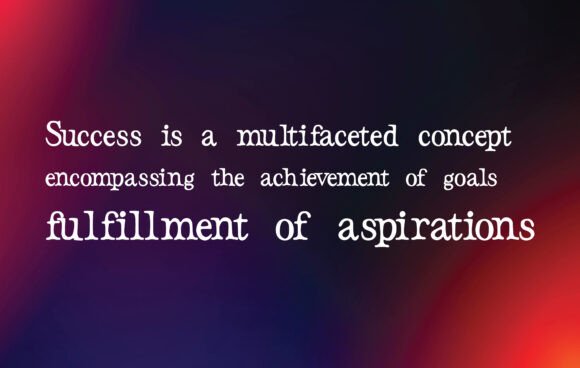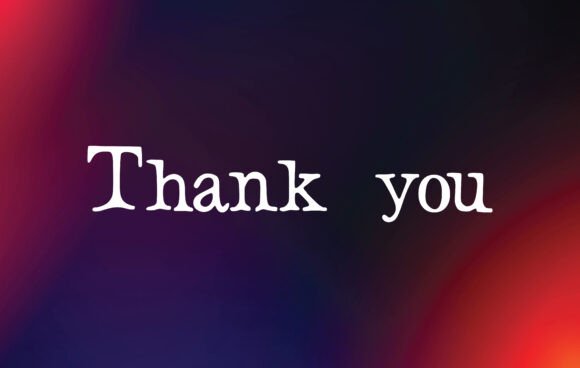
Halsey Font: Elevate Your Designs with a Touch of Elegance
Are you on the lookout for a font that can take your creative projects to new heights? Look no further than the Halsey Font. This stunning typeface is designed to be a true favorite among designers and crafters, offering a perfect blend of legibility, versatility, and style. Whether you’re working on a magazine headline, t-shirt design, social media post, or wedding invitation, the Halsey Font is sure to impress.
What Makes Halsey Font Stand Out?
The Halsey Font is crafted with precision and attention to detail, making it a standout in the world of typography. Its unique design ensures that it looks great as both a title and body text, providing flexibility and consistency across various applications. This font is not just about aesthetics; it’s also highly legible, making it perfect for reading-intensive designs.
One of the key advantages of the Halsey Font is its incredible versatility. It’s a font that can seamlessly fit into a wide range of design projects. Here are some ideas where the Halsey Font would shine:
- Magazine Headlines: Grab the attention of your readers with bold and stylish headlines.
- T-Shirts: Create eye-catching and memorable apparel designs.
- Social Media: Elevate your posts and stories with a professional and trendy look.
- Branding: Establish a strong brand identity with a font that exudes elegance and sophistication.
- Wedding Invitations: Add a touch of class and romance to your wedding stationery.
- Cards: Whether it’s a birthday, greeting, or thank you card, make it special with the Halsey Font.
Why Choose Halsey Font?
There are several reasons why the Halsey Font should be your go-to choice for your next design project:
- Ease of Use: The Halsey Font is incredibly easy to use, even for those who are new to graphic design.
- High Legibility: Its clear and readable design makes it suitable for both digital and print media.
- Customizable: Experiment with different sizes, colors, and styles to match your project’s tone and theme.
- Timeless Appeal: Unlike trendy fonts that may quickly go out of style, the Halsey Font has a timeless quality that ensures your designs remain relevant.
Tips for Using Halsey Font Effectively
To get the most out of the Halsey Font, consider the following tips:
- Mix and Match: Combine the Halsey Font with other fonts to create a unique and visually appealing design.
- Play with Sizes: Use different font sizes to create a hierarchy of information and draw attention to key elements.
- Experiment with Colors: Choose colors that complement your brand or project’s aesthetic to enhance the overall impact.
The Halsey Font is more than just a typeface; it’s a design companion that can help you bring your creative ideas to life. Its elegance, legibility, and versatility make it an excellent choice for a wide range of projects. Whether you’re a professional designer or a DIY enthusiast, the Halsey Font has the potential to elevate your designs and make them truly unforgettable. So why wait? Explore the possibilities of the Halsey Font today and take your designs to the next level.